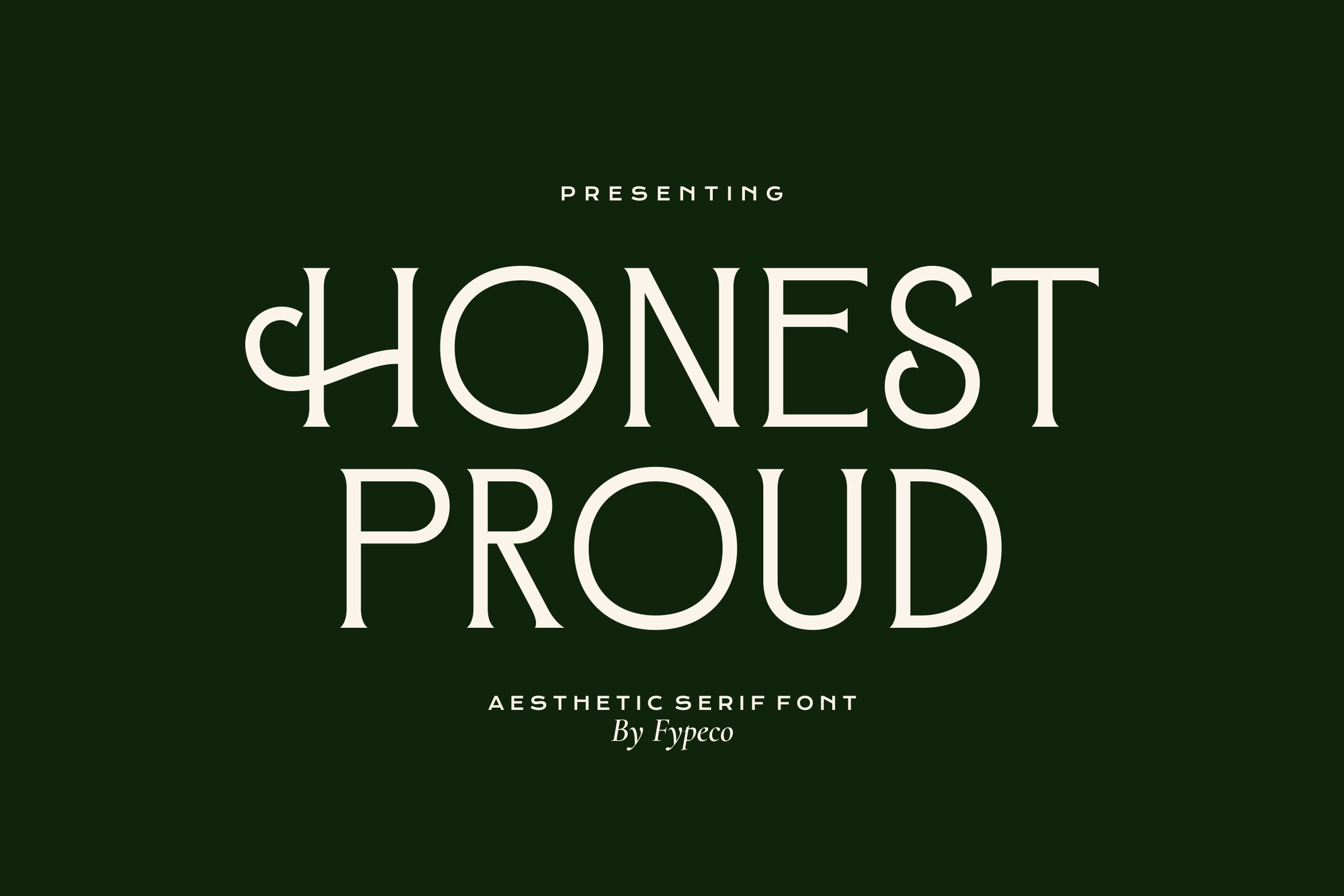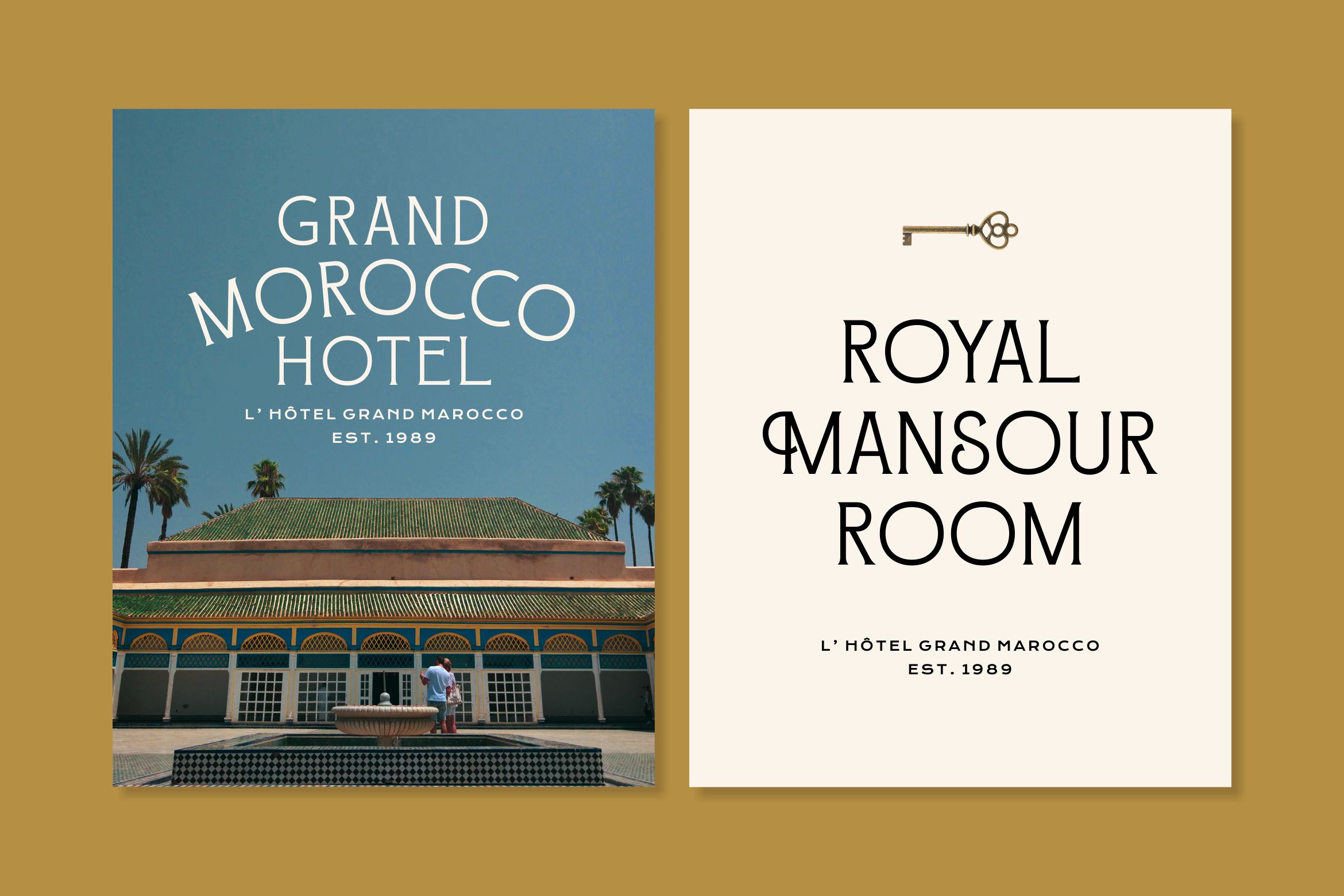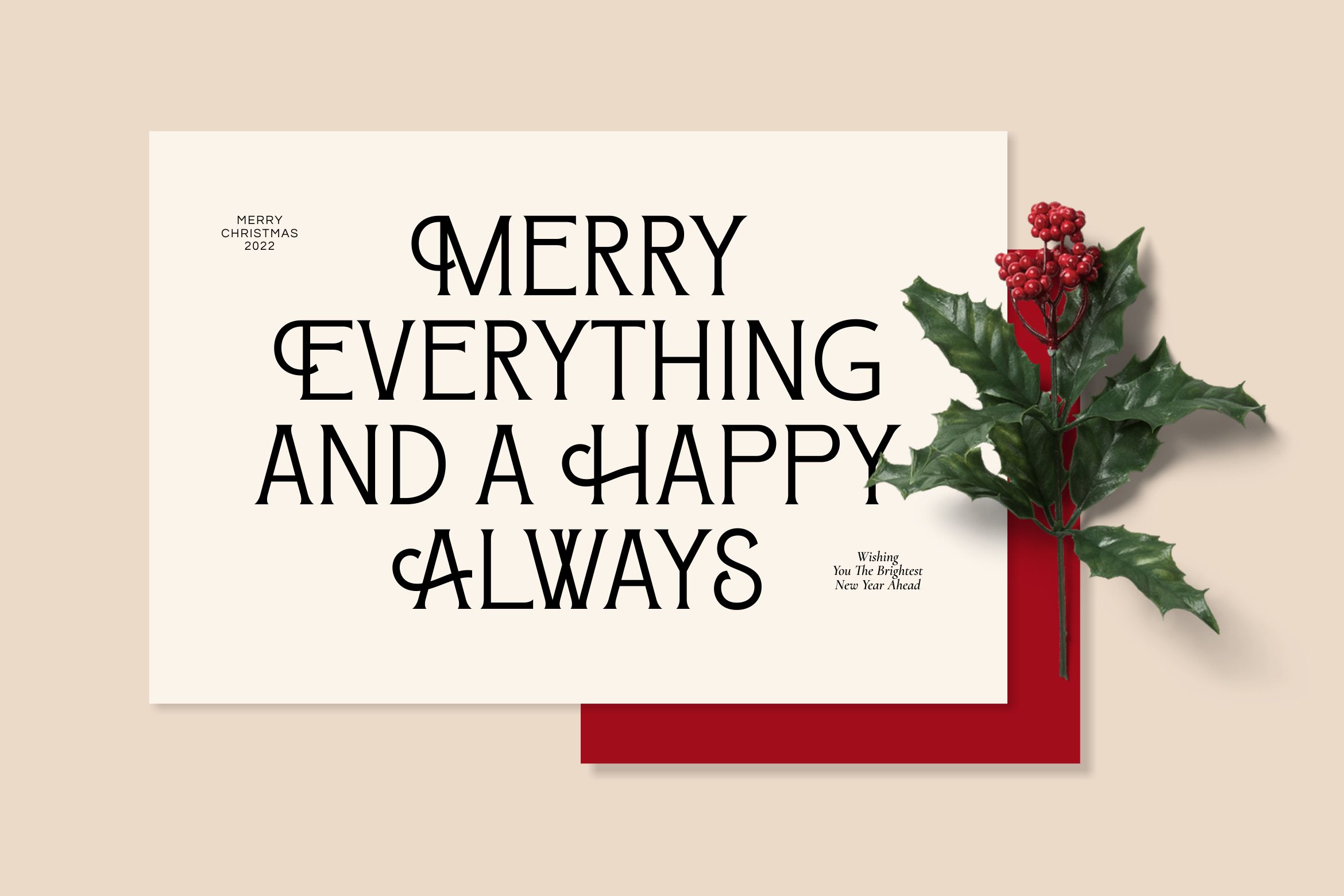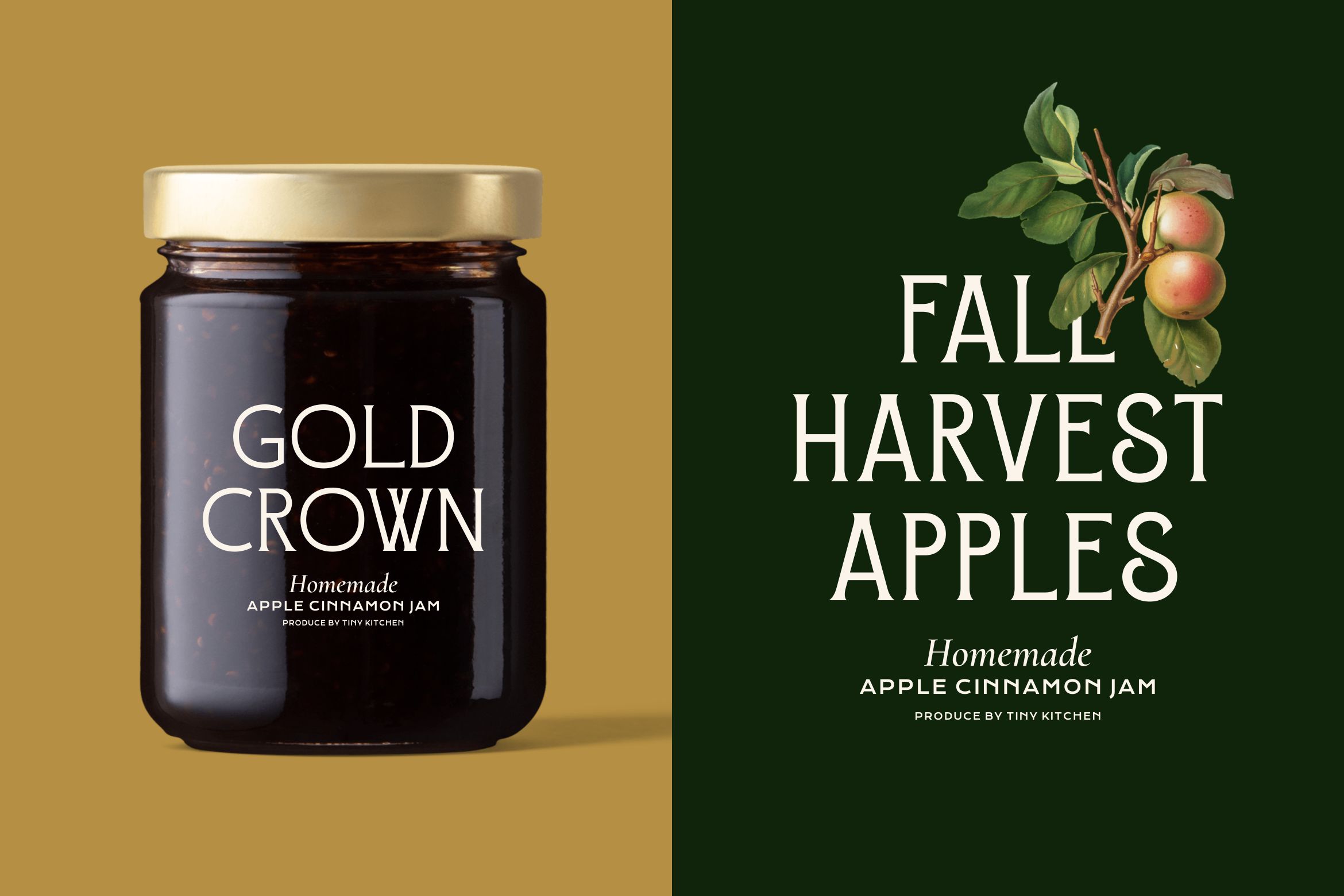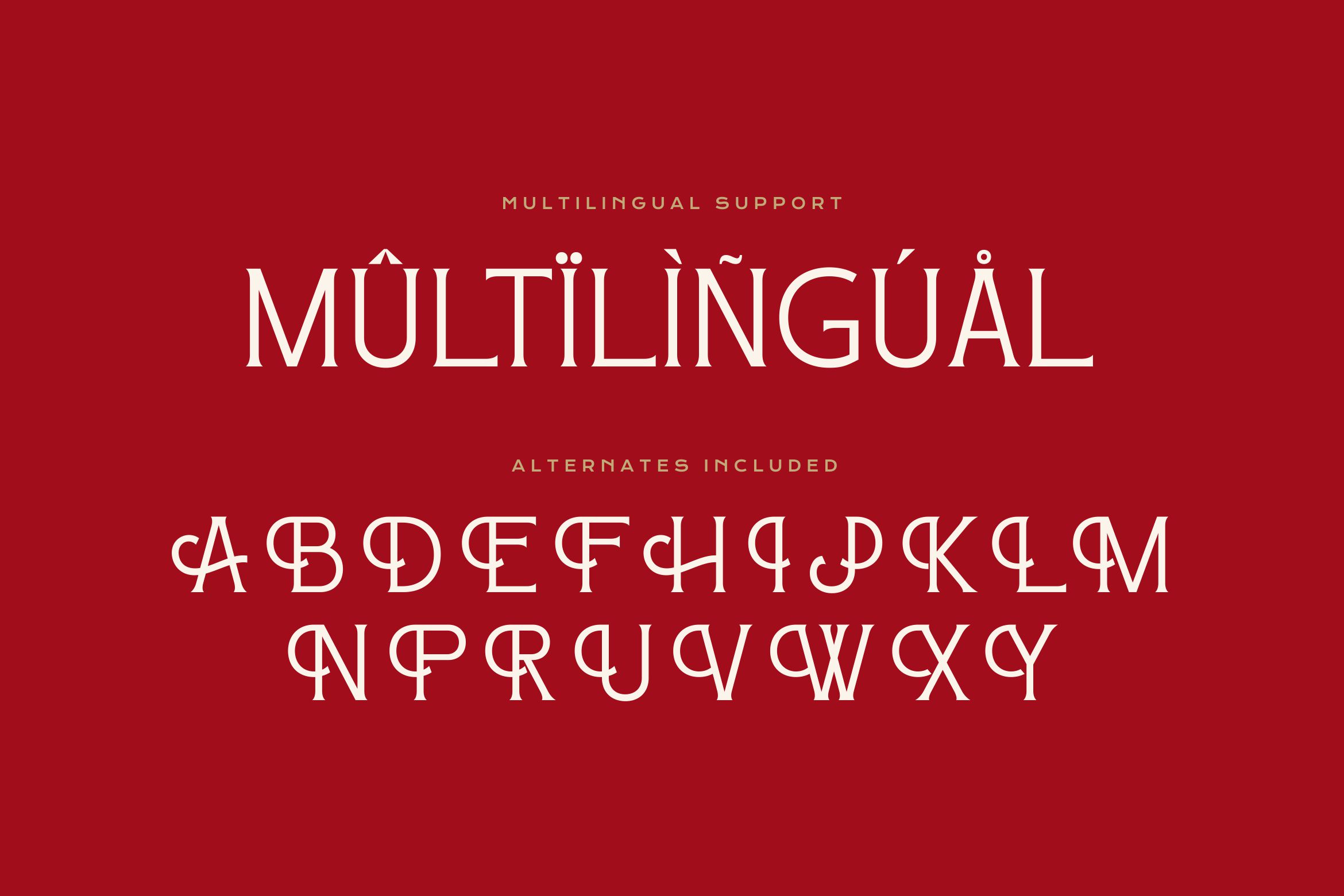
The Honest Proud font is an aesthetic serif typeface that blends elegance with a touch of modern sophistication. Its unique letterforms, featuring graceful curves and subtle alternates, create a refined balance between classic tradition and contemporary design. This makes it highly versatile for luxury branding, editorial layouts, packaging, and stylish displays that need a distinguished yet approachable feel.
With its carefully crafted details, Honest Proud offers multilingual support and includes stylistic alternates for creative flexibility. From hotel branding and festive greetings to artisanal product packaging, this font adds a timeless charm and upscale aesthetic to any project, ensuring that your designs radiate class and confidence.